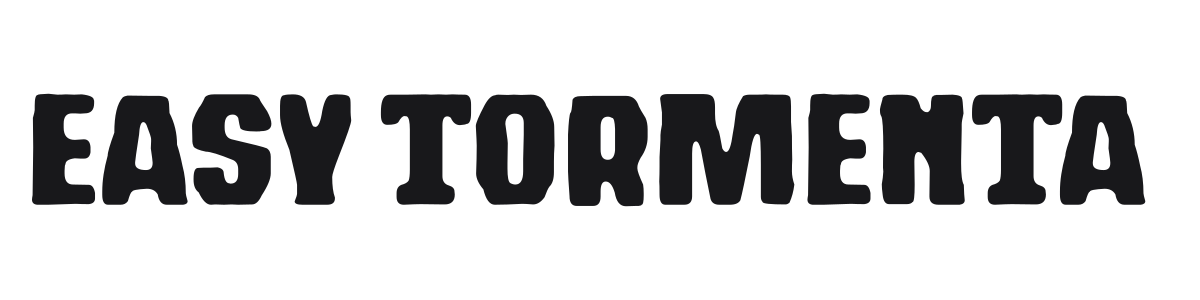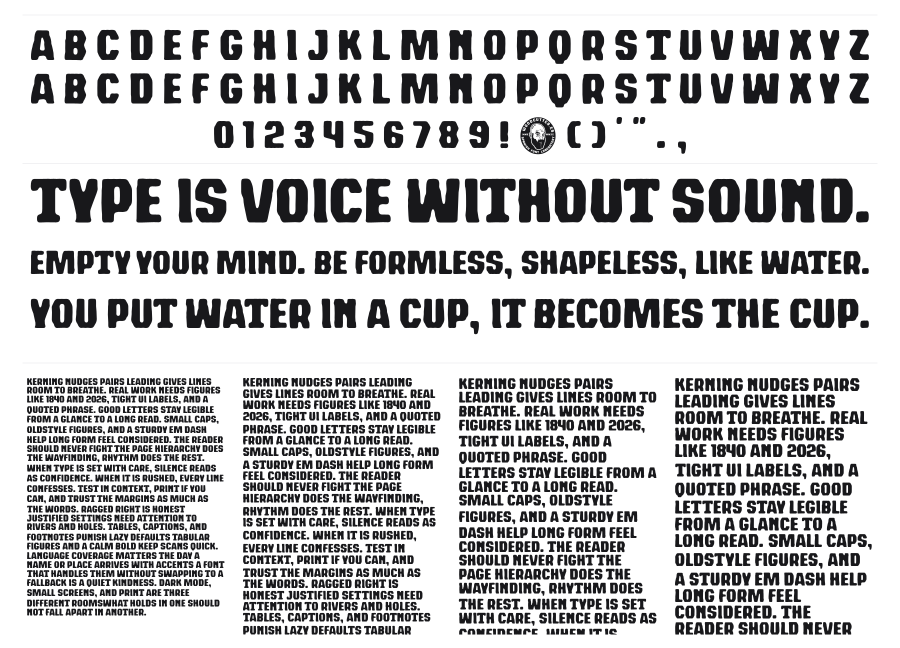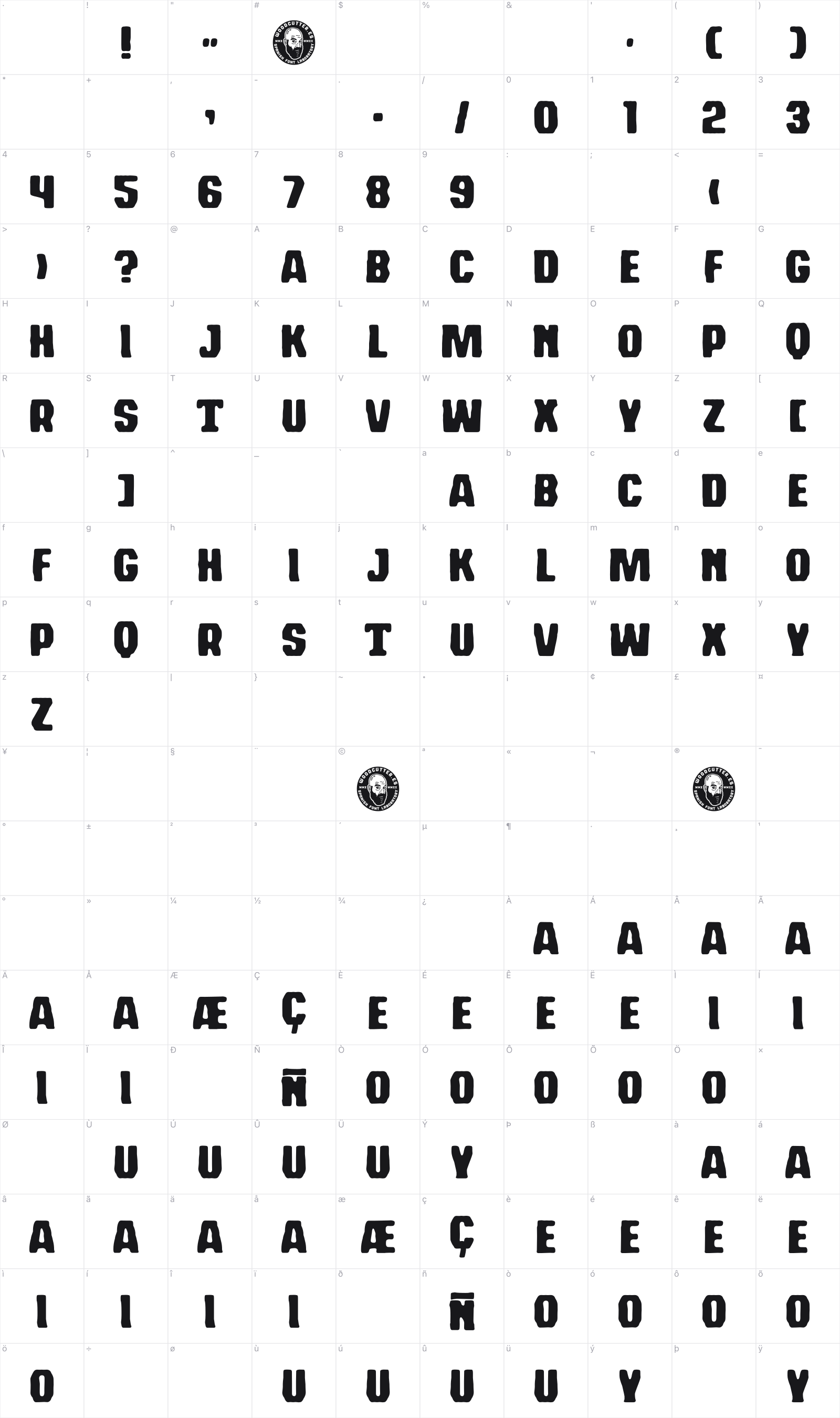
Easy Tormenta
Easy Tormenta is a heavy condensed display font with a raw, hand-pressed quality built into every character. Strokes pinch and swell unevenly, giving the bold mass a sense of inky tension rather than mechanical precision. Strong at large sizes for posters, album art, and anything that needs weight with attitude.